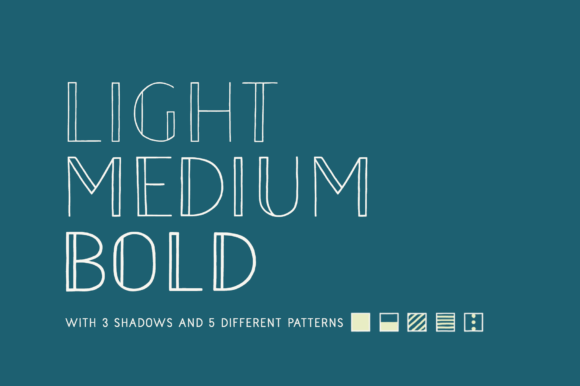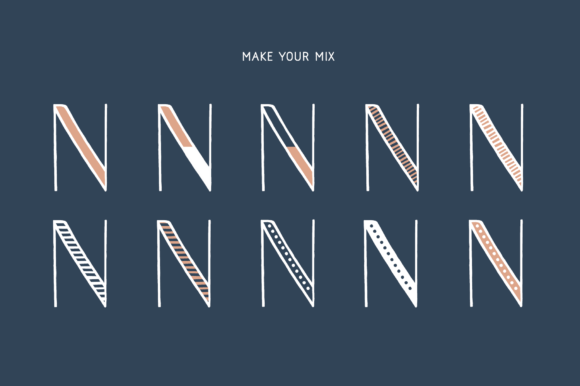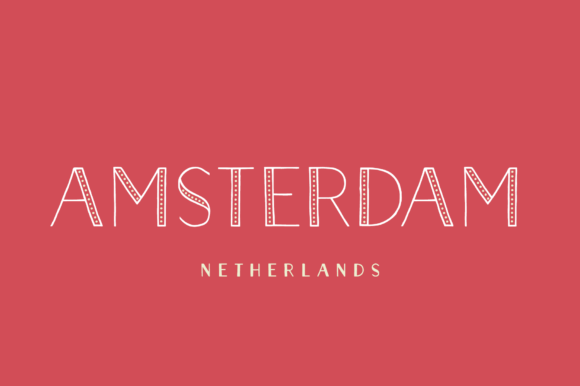
Introduction to Naive Inline Sans Font
Have you ever been working on a creative project and felt like something was missing – that special touch that makes your design truly unique? For designers, finding the perfect font can be a game-changer, elevating a project from good to great. That’s where the Naive Inline Sans Font comes in – a beautifully designed, layered sans serif handwritten font that’s sure to add a touch of whimsy and charm to any design.
Designed by Fanny Coulez and Julien Saurin in Paris, this high-quality font is part of the Naive superfamily, offering a range of variations to suit any design need. With three weights to ensure good readability, and five different interior patterns and three shadows to enhance your design, the Naive Inline Sans Font is the perfect design resource for anyone looking to add a little extra magic to their work.
Key Features of Naive Inline Sans Font
- High-quality design suitable for creative projects, offering a clean and modern look.
- Transparent background, allowing for easy customization and layering in design software.
- Font size: 1,000 glyphs, ensuring a wide range of characters and symbols for creative expression.
- Resolution: Optimized for high-resolution displays, making it ideal for print and digital applications.
- Unique inline design, providing a distinctive and modern aesthetic for creative projects.
Honest Review: Naive Inline Sans Font
As a designer, I’m always on the lookout for high-quality design resources to elevate my creative projects. The Naive Inline Sans Font is one such find that caught my attention. I was excited to try it out and see how it performs.
- What works well: ✨ I love the unique, hand-drawn feel of this font. It adds a touch of personality to any design project. The transparent background feature is also a bonus, making it easy to use in various design contexts.
- ⚠️ The font may not be suitable for large-scale or commercial use due to its quirky, hand-drawn nature. It’s best used in creative projects where a more playful feel is desired.
- ⚠️ The font’s transparency can sometimes make it difficult to read, especially in complex design compositions.
Overall, I’m impressed with the Naive Inline Sans Font’s unique aesthetic and versatility. While it may not be suitable for every project, it’s a great addition to any designer’s toolkit.
Tips for Getting the Most Out of Naive Inline Sans Font
To get the most out of the Naive Inline Sans Font, try combining it with other design elements, such as bold typography, bright colors, and creative graphics. This font is perfect for creating unique and stylish designs that stand out from the crowd.
Common Use Cases for Naive Inline Sans Font
The Naive Inline Sans Font is perfect for a variety of creative projects, including graphic design, digital art, and typography. It’s also great for creating social media graphics, blog posts, and website headers.